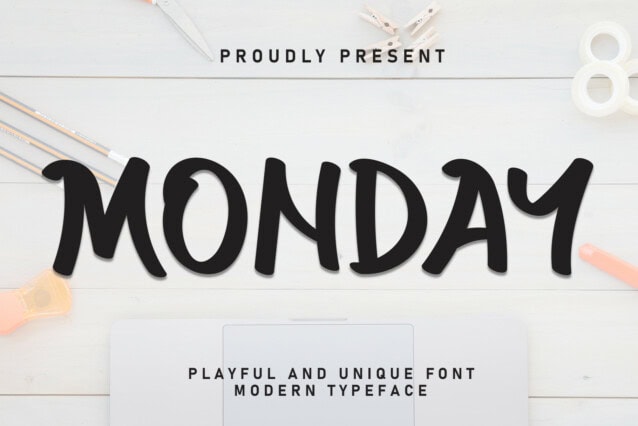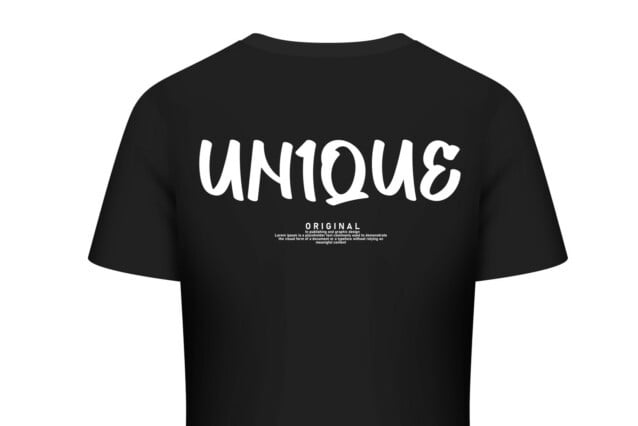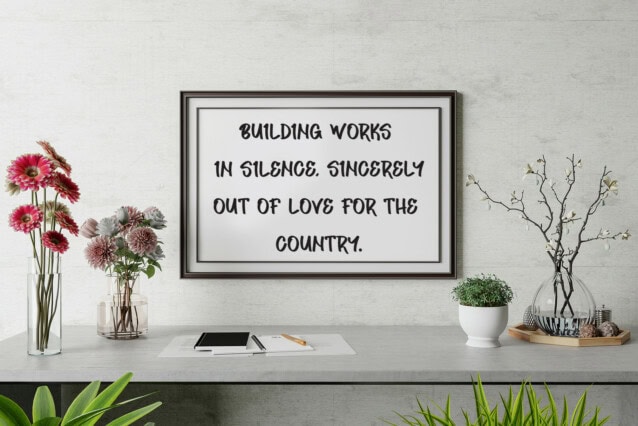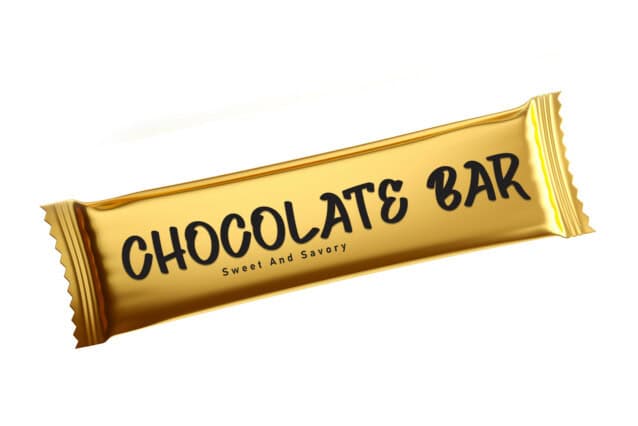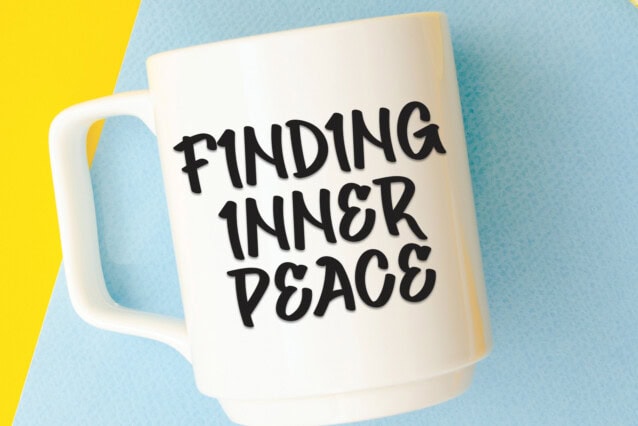
Monday Brush Font
Monday Brush Font is a sweet and friendly handwritten font. Its natural and unique style makes it incredibly fitting to a large pool of designs. The only limit is your imagination!